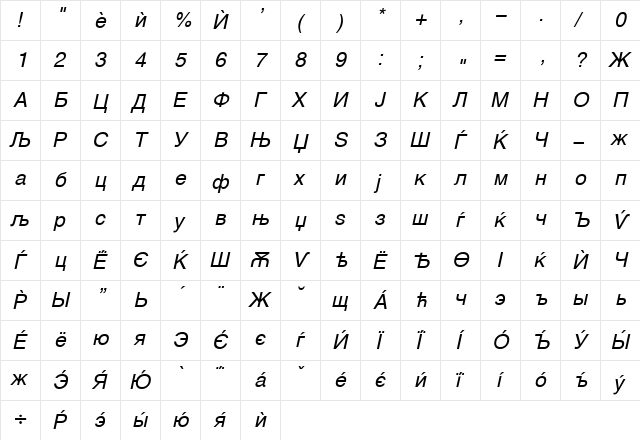
Makedonska Helvetika Italic
Design Context for Makedonska Helvetika Typeface
Makedonska Helvetika offers clean, dependable letterforms without strong stylistic allegiance, making it a practical choice for designers who need flexibility. The slanted form adds forward momentum and visual energy.